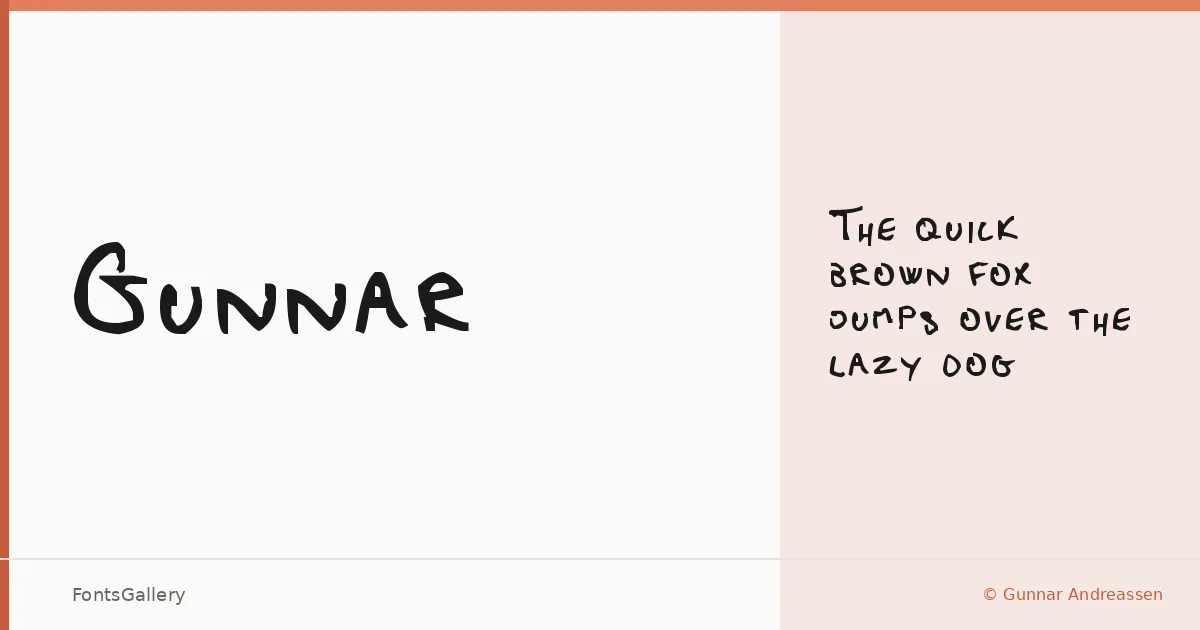
About Gunnar Font
There is an unmistakable hand behind every letterform here — the kind of casual, personal mark that comes from someone actually putting pen to paper rather than nudging anchor points. Gunnar Andreassen drew this face by hand and brought it to type through Scanahand, and that origin shows in the best possible way: slight irregularities, warm stroke pressure, and a rhythm that no algorithmic script can quite fake.
This is a handwritten family — a single Regular cut delivered as a TTF — and it leans into a mood that is playful and whimsical without tipping into chaos. The rustic quality in the strokes keeps it grounded, giving it more personality than a polished calligraphic script but more legibility than a loose brush face. At display sizes the individual character shapes really open up, rewarding a close look.
It earns its keep on greeting cards, invitation cards, and children's book covers, where that handmade warmth is exactly what the work calls for. Social media graphics — especially anything seasonal or celebratory — benefit from how quickly the style communicates informality and sincerity. For contrast, it pairs well with the clean geometry of Helvetica or Asap, and holds its own alongside more refined serifs like Adobe Caslon Pro, ABC Arizona, or Canela.